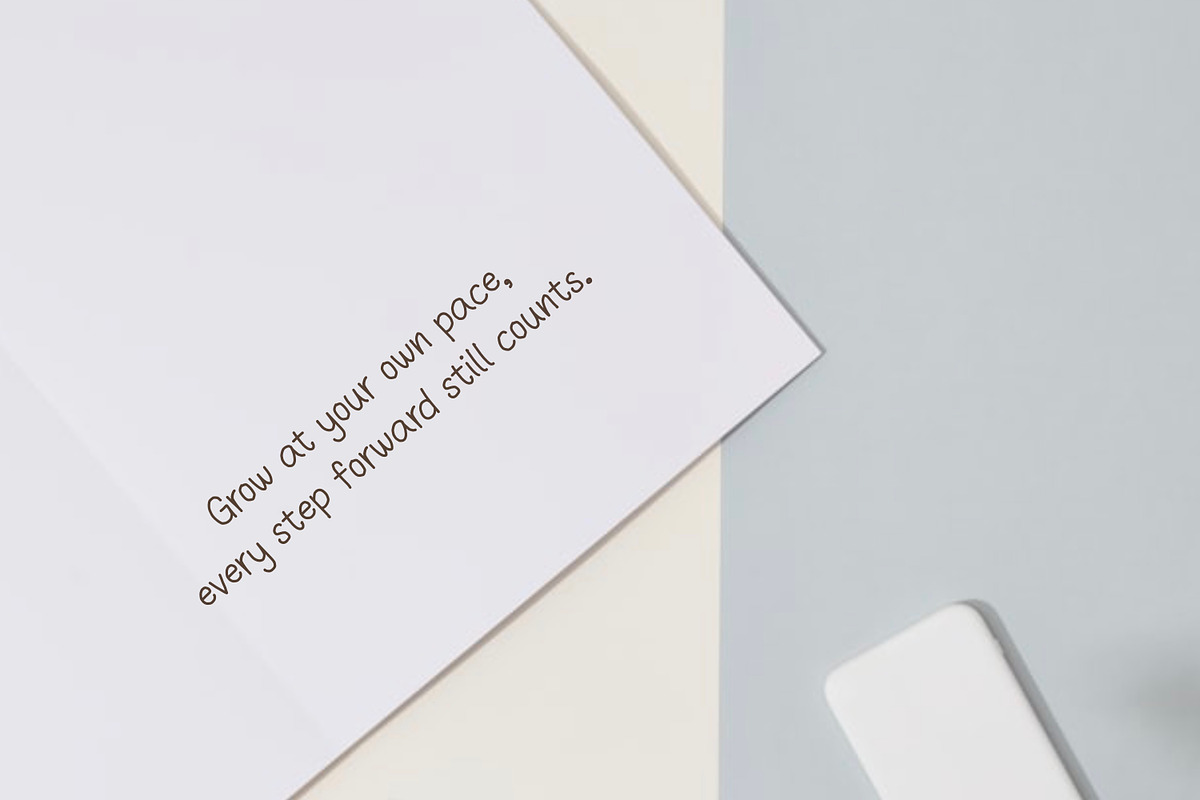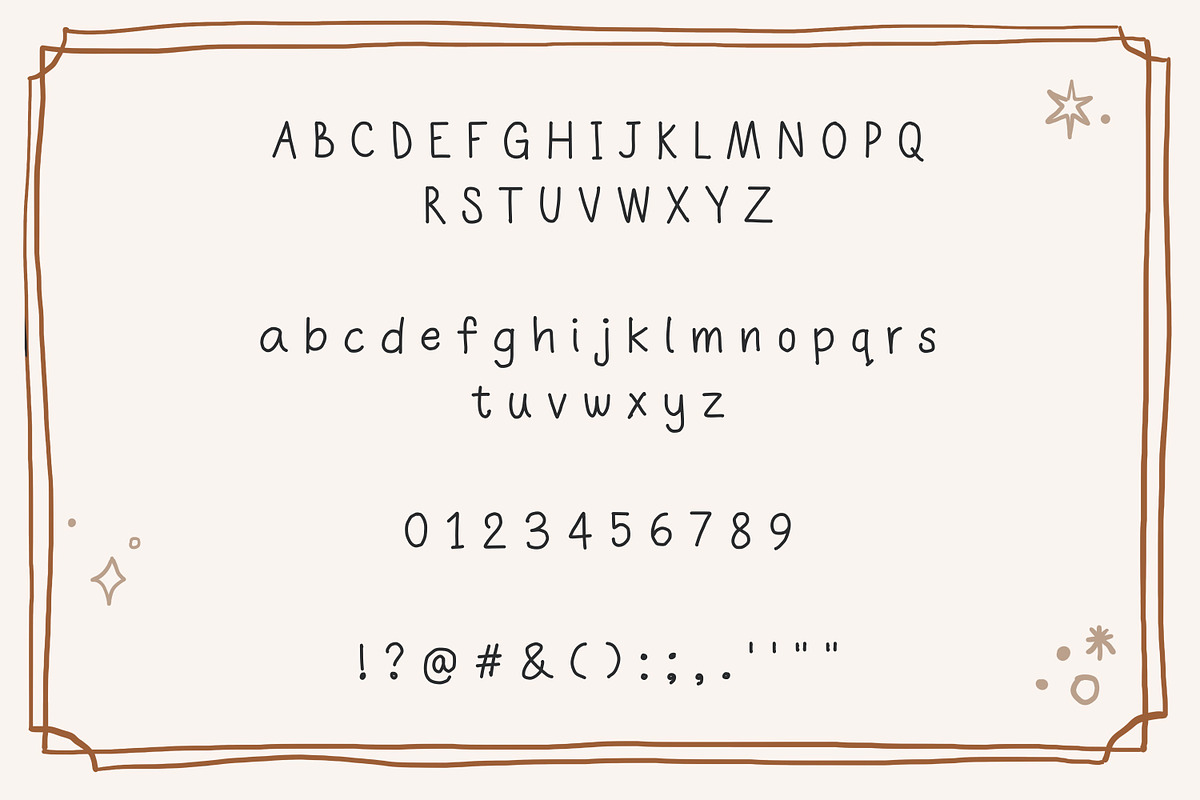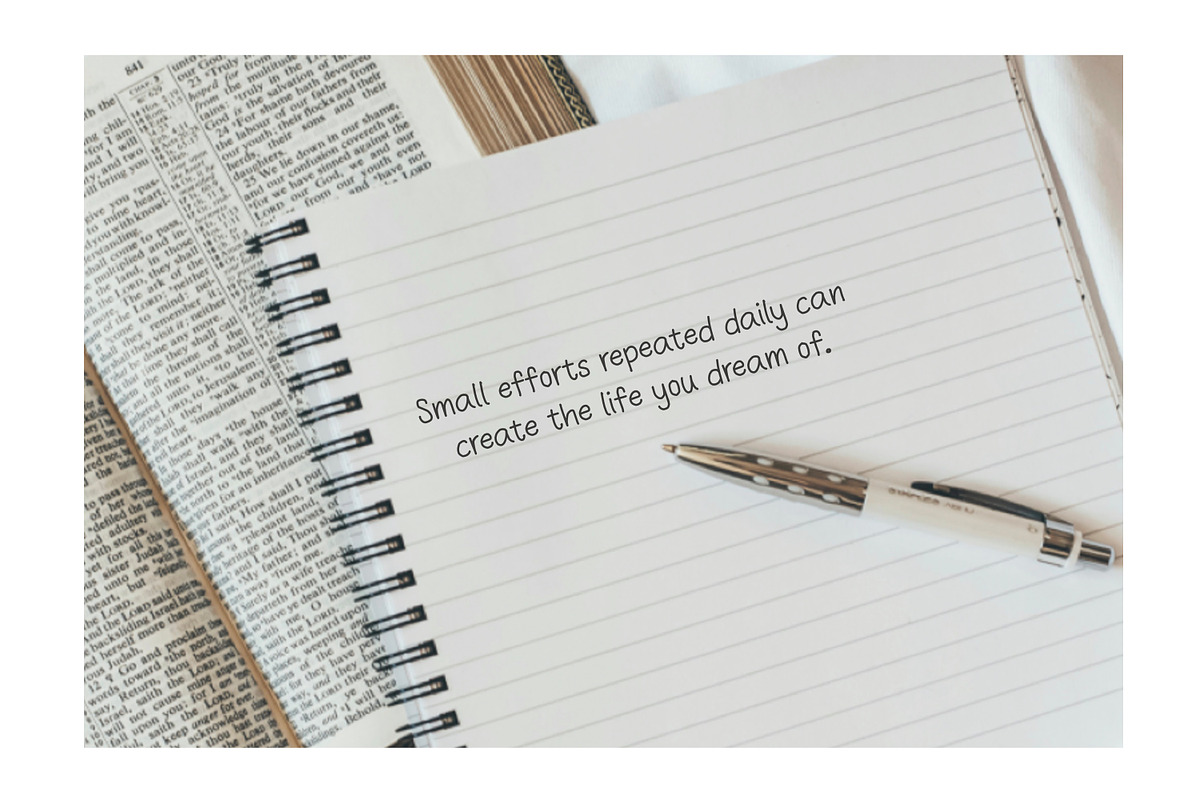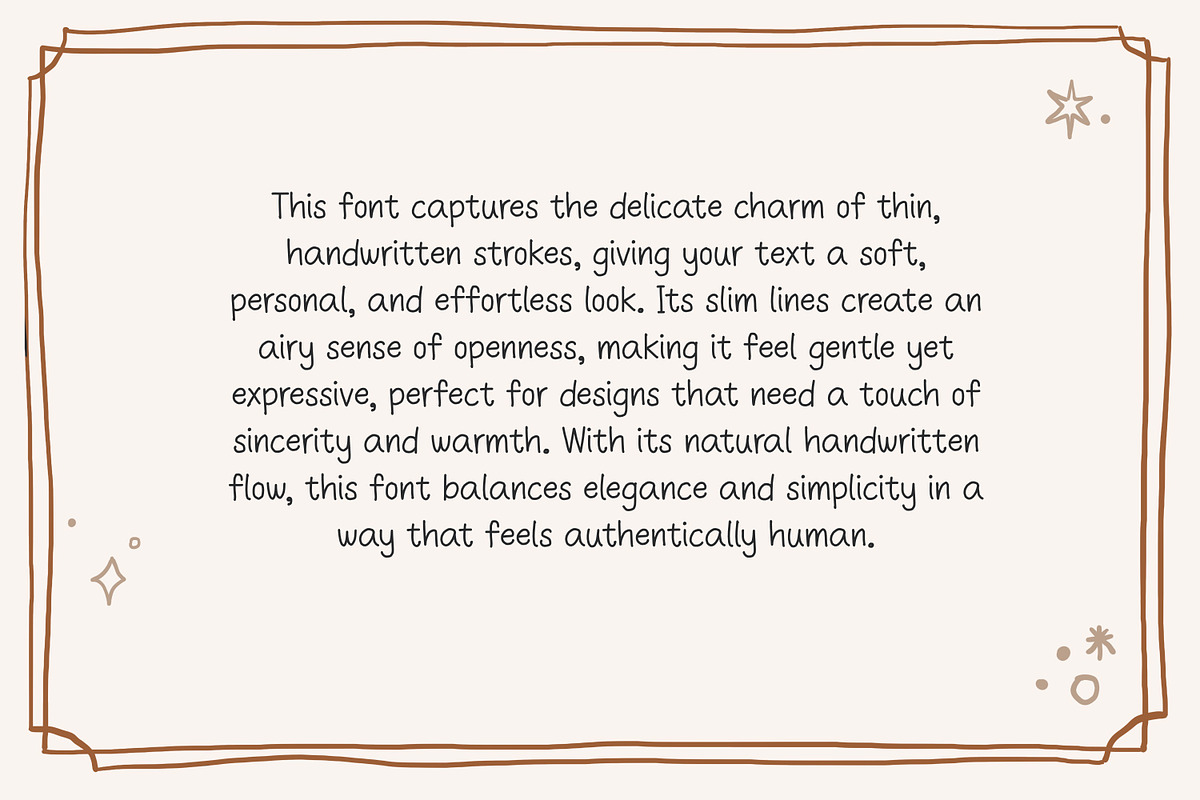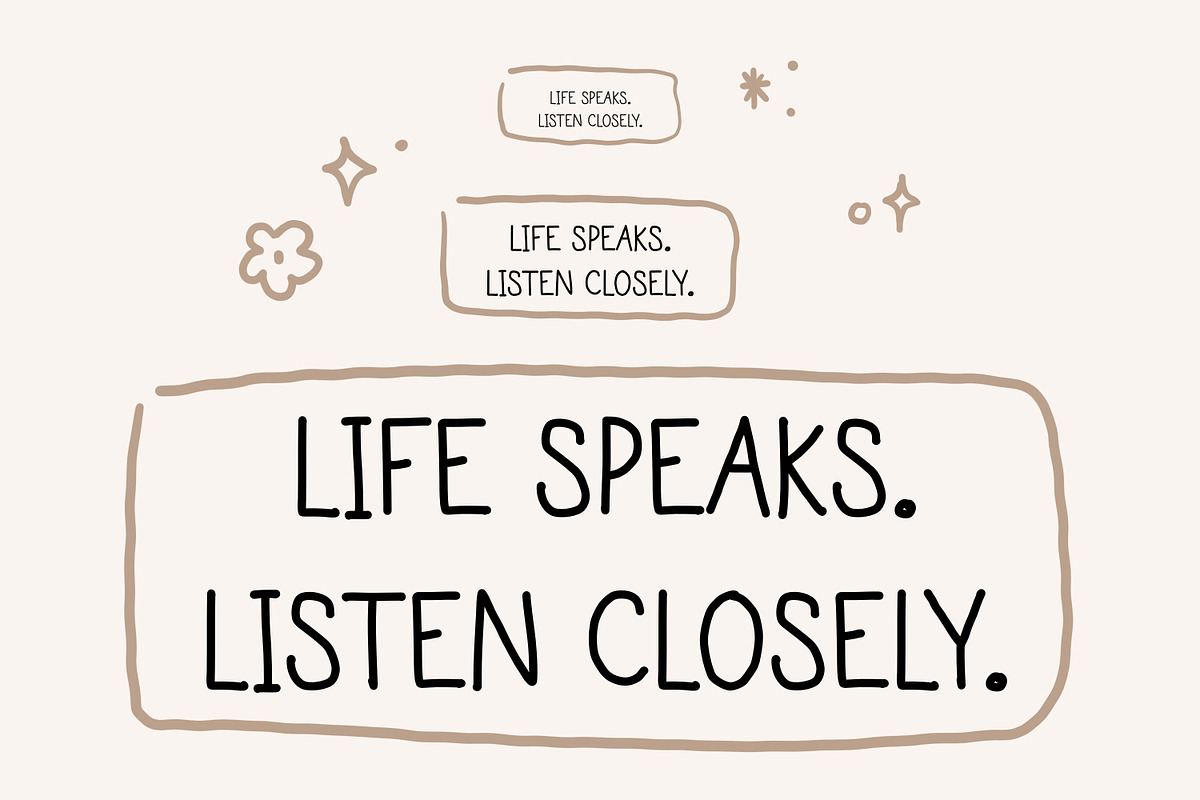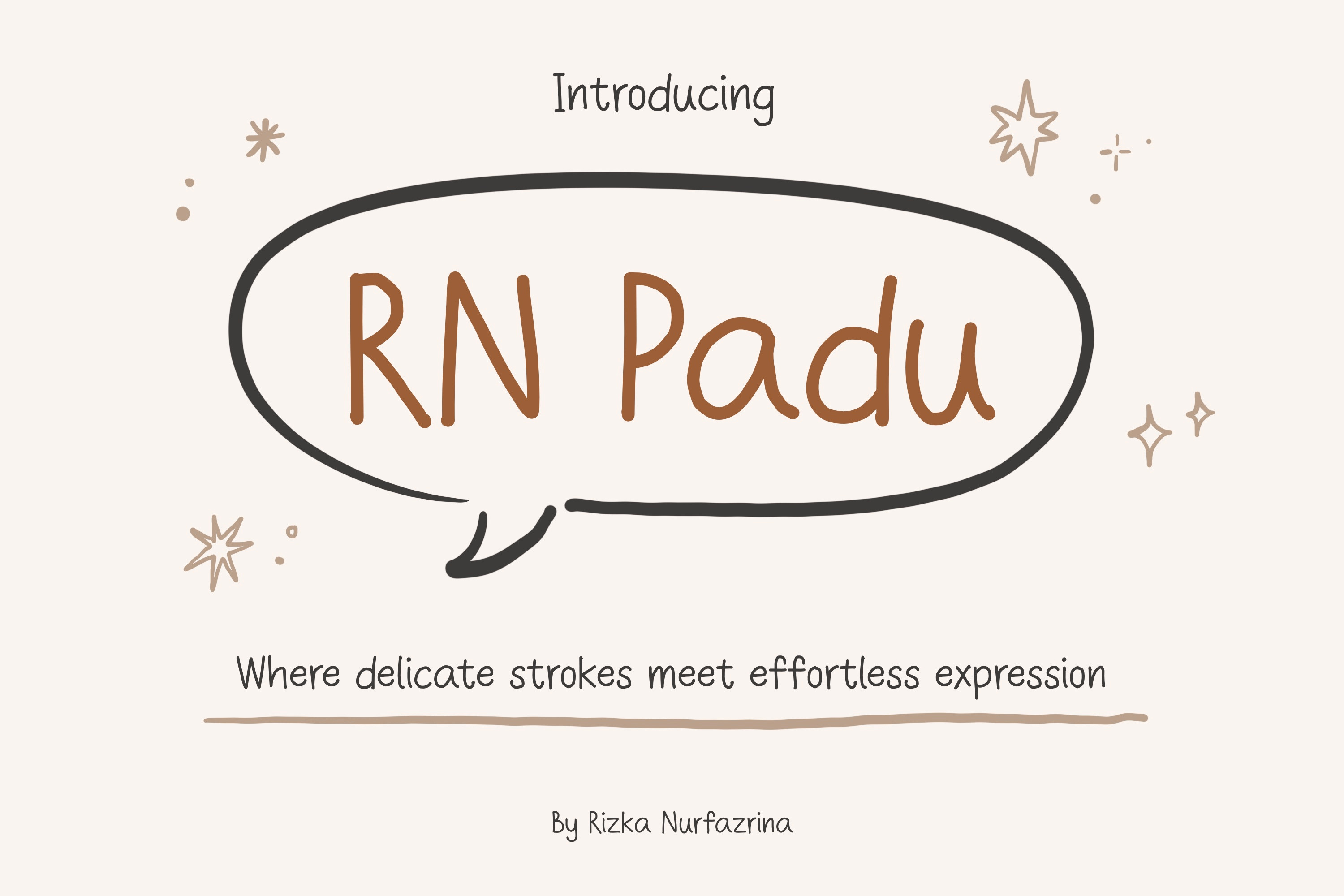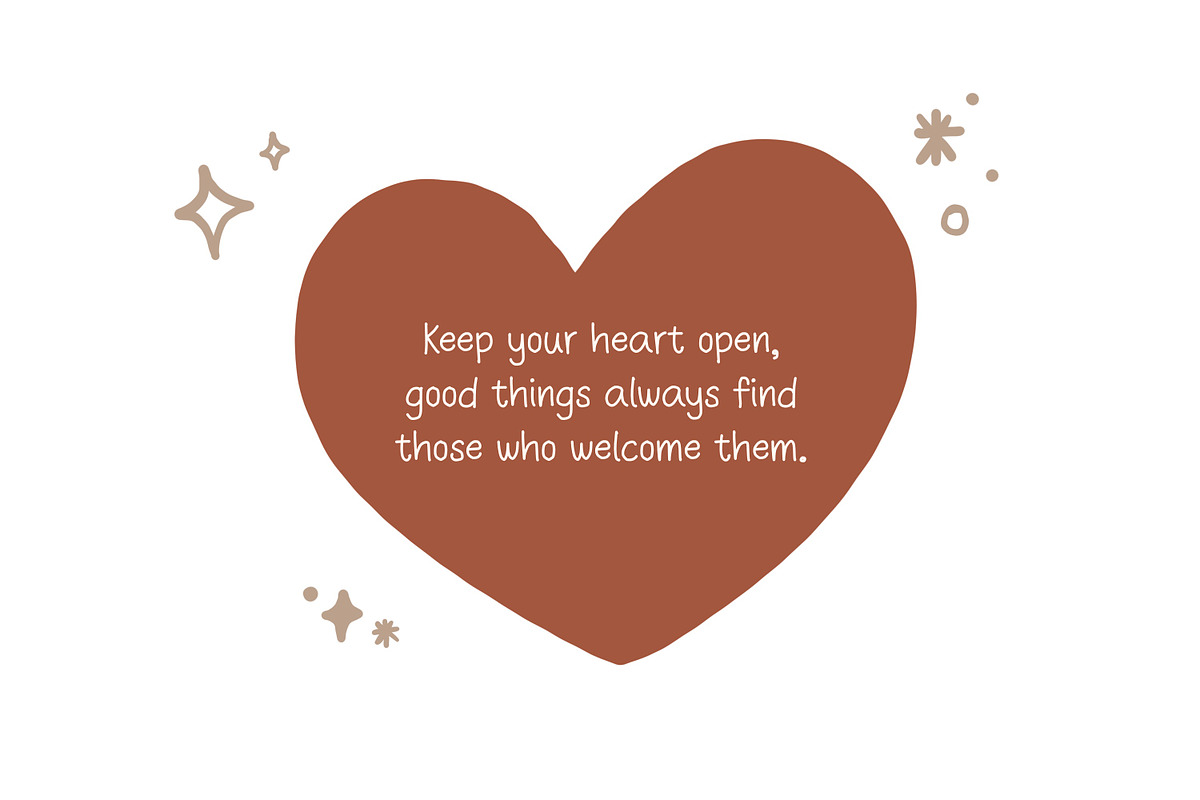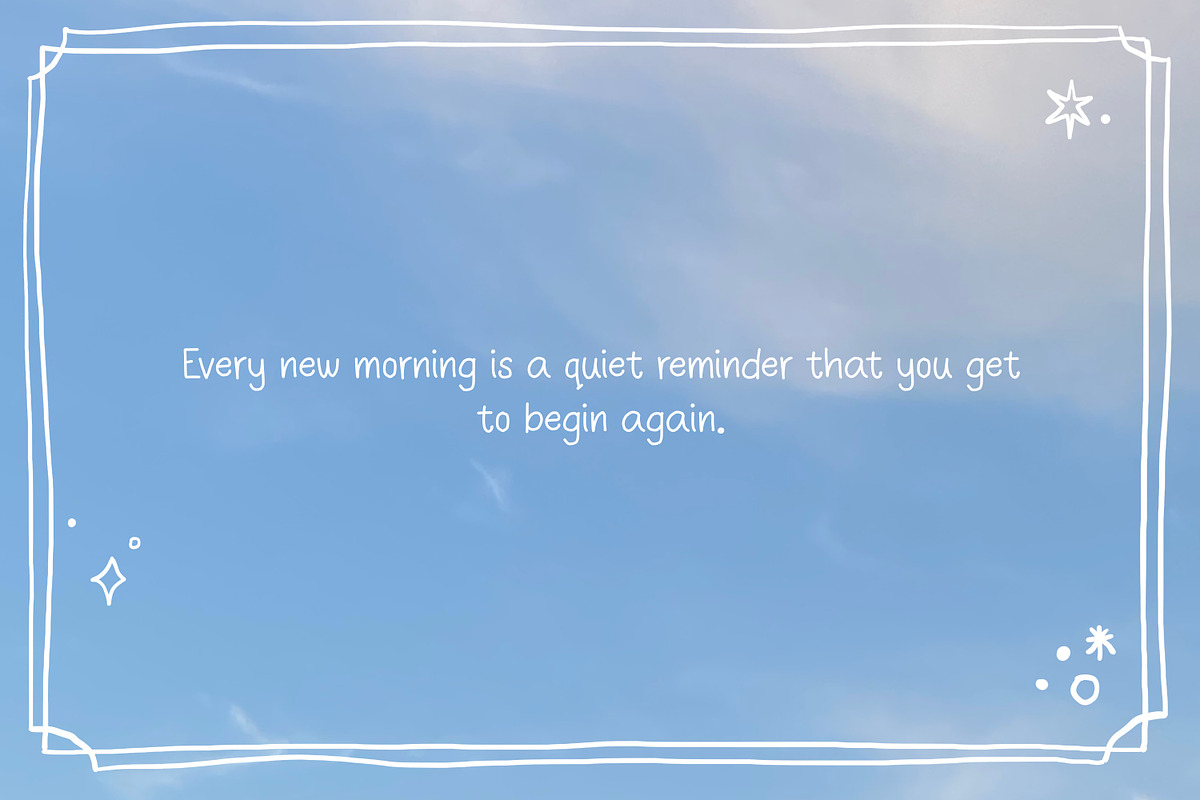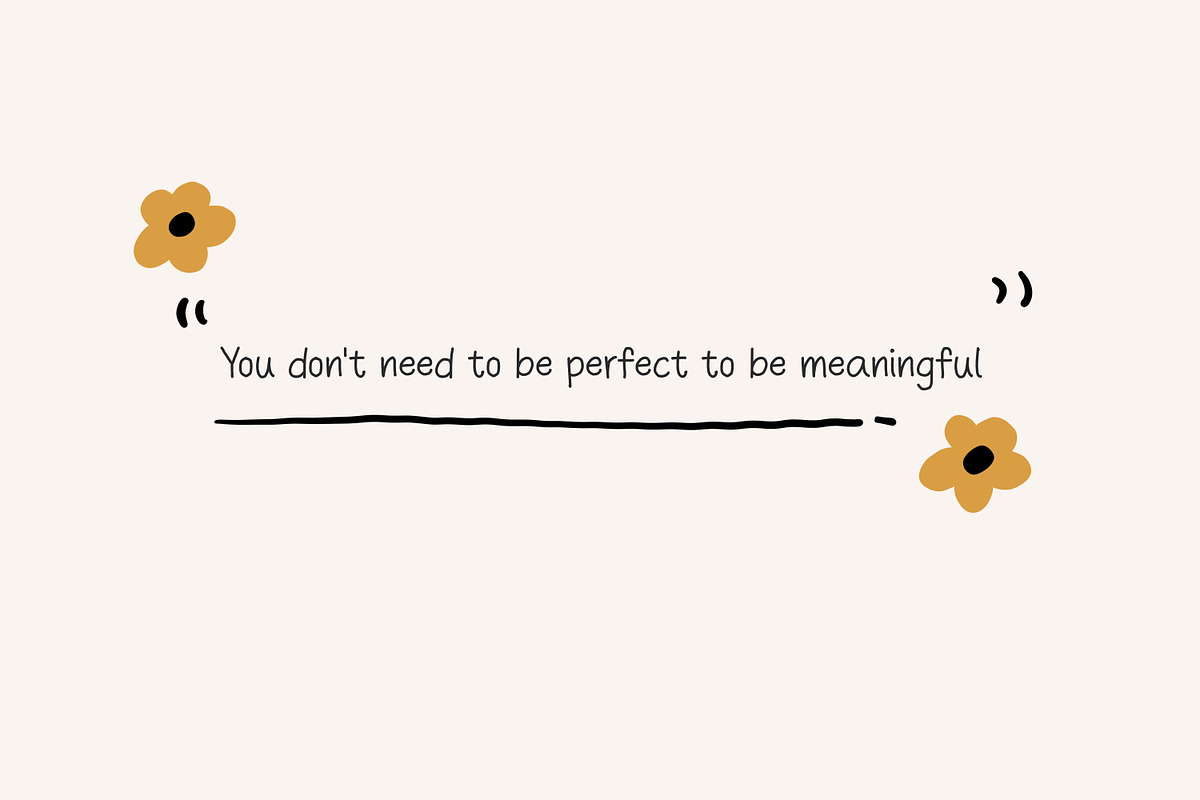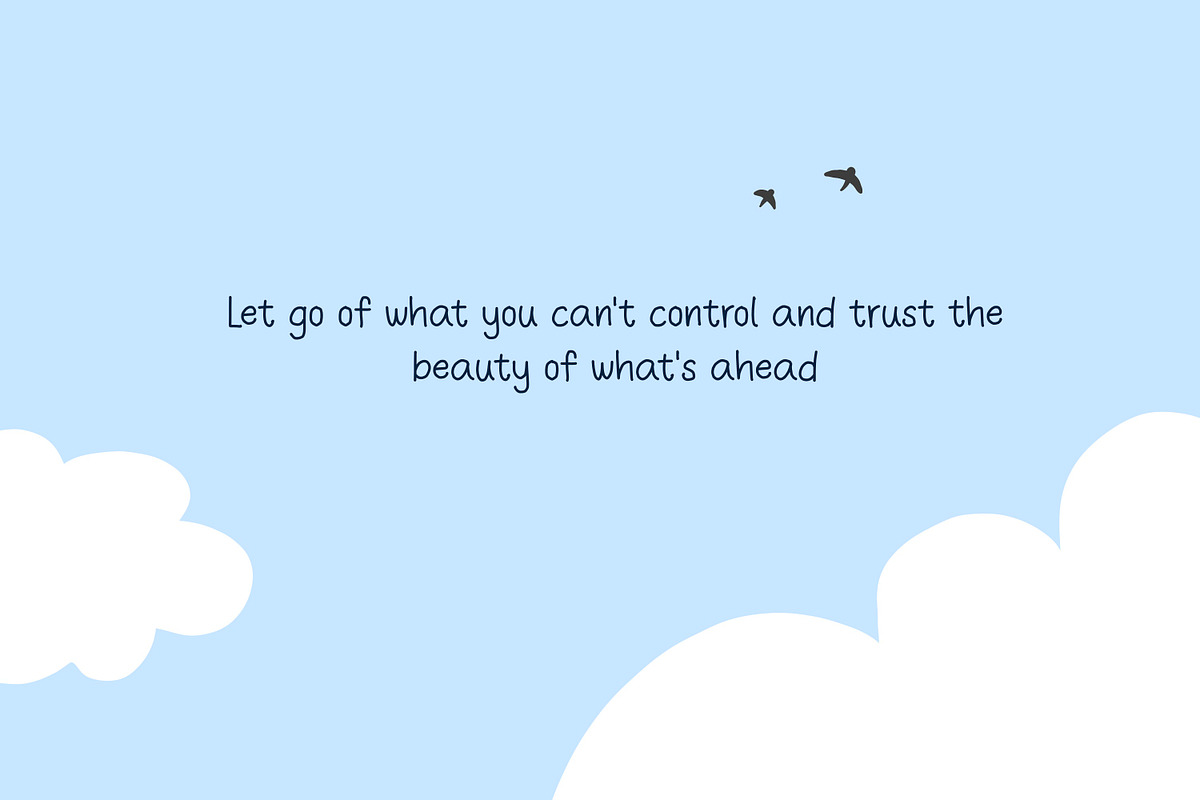
RN Padu - Handwriting font
Introducing RN Padu, a thin handwritten typeface designed to bring softness, authenticity, and emotional warmth to your creative projects. Its slender strokes and natural pen-like rhythm make it ideal for designs that call for a personal and heartfelt touch. Whether you want elegance, calmness, or a gentle human feel, this font delivers subtle beauty in every letter. Perfect For
- Inspirational quotes and social media posts
- Branding with a soft, minimalist personality
- Wedding invitations and stationery
- Journals, planners, and personal notes
- Packaging or product labels with a handmade feel
- Aesthetic posters and lifestyle designs
- Digital or print projects that need an airy handwritten look